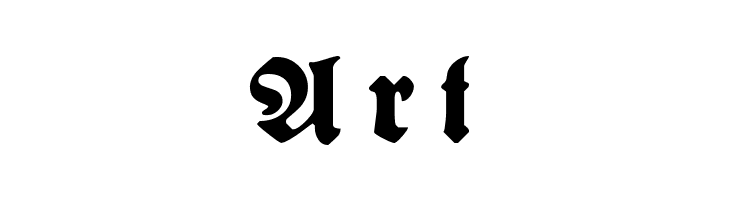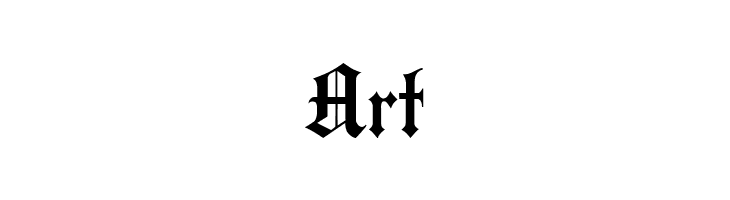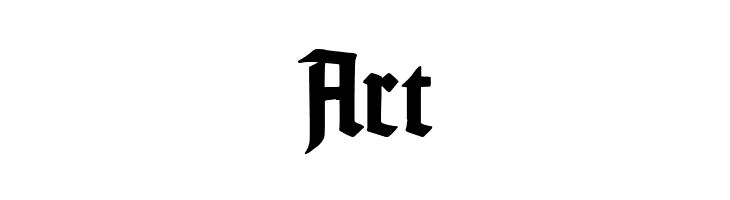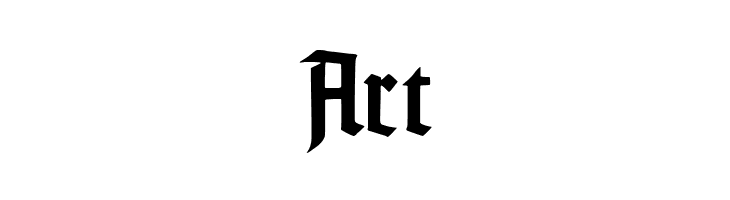
A traditional Blackletter font with ornate, angular letterforms and decorative flourishes.
A bold, dramatic Blackletter font with ornate, angular lines and high contrast.
A traditional Blackletter font with ornate, angular designs and decorative flourishes.
A traditional blackletter font with ornate, angular strokes and a gothic aesthetic.
A detailed and ornate Blackletter font with sharp, angular strokes and decorative flourishes.
A classic blackletter font with sharp, angular lines and a medieval aesthetic.
A calligraphic-inspired font with angular strokes and a blend of traditional and modern elements.
A bold blackletter font with sharp, angular lines and dramatic strokes.
A bold, blackletter font with sharp, angular lines and a gothic influence.
A traditional blackletter font with ornate, angular letterforms and historical elegance.